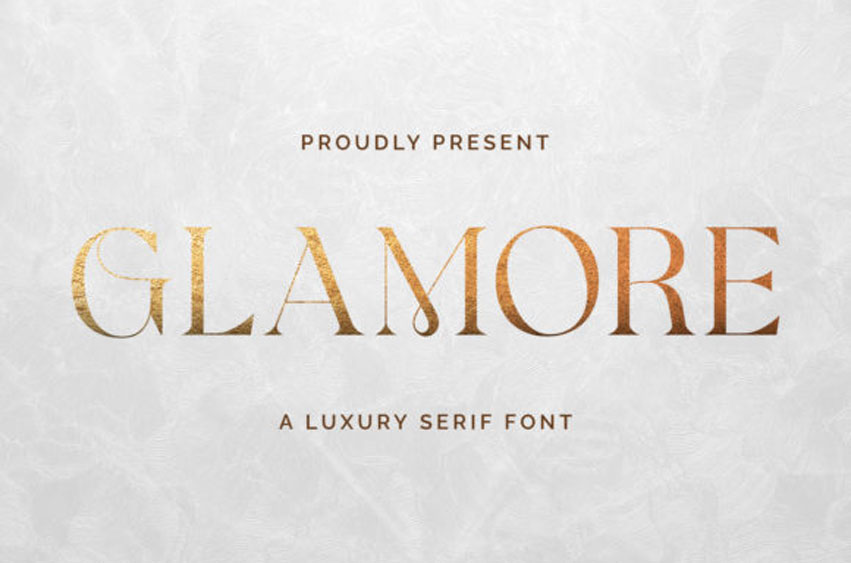
Glamore Serif Font
Glamore Serif Font is a luxurious and bold serif font.
It has a classy, elegant and modern look that can be used for logos, branding, invitations, stationery, wedding designs, social media posts, and much more!